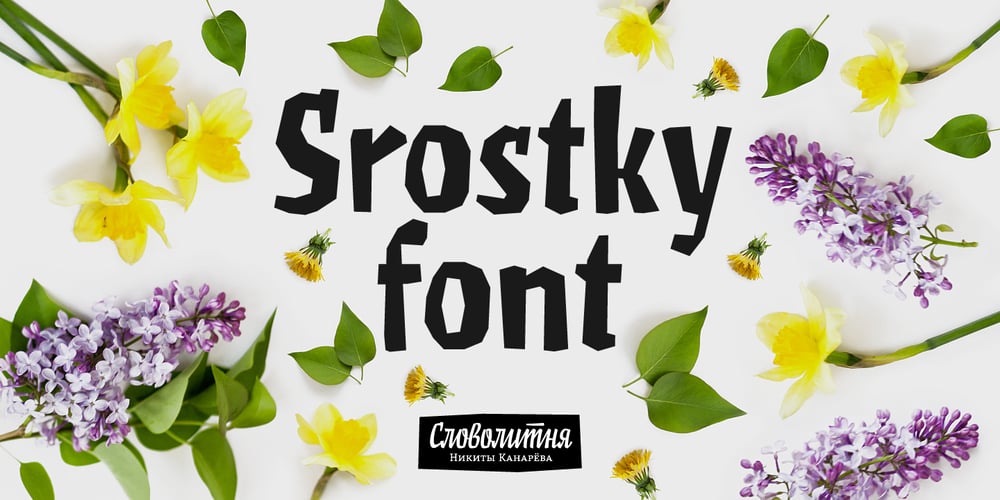
Srostky Font Family was designed by Nikita Kanarev and published by Nikita Kanarev. Srostky contains 1 styles and family package options. The Srostky font is willful and stubborn. It is rude, but it is as natural as a country boy. The characters of this font were inspired by an image of the Russian countryside. The letters look as if they were felled with an ax. It is named after the village in Altai region. This font is suitable for short sayings and titles.